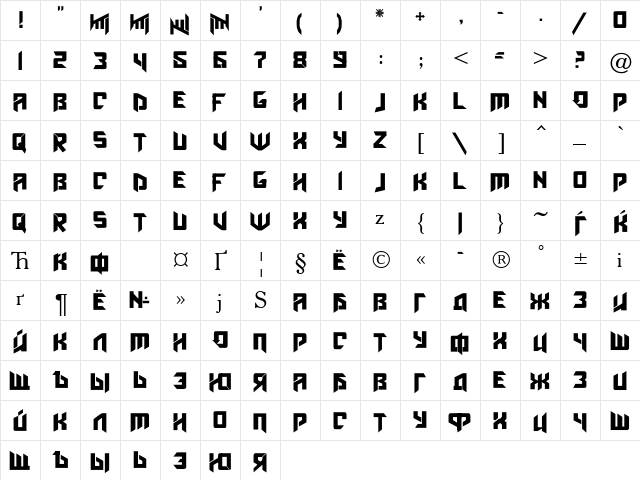
ObitaemOstrov Regular
Design Context for ObitaemOstrov Typeface
ObitaemOstrov is a composed and adaptable typeface that performs quietly and consistently across a wide range of design contexts.